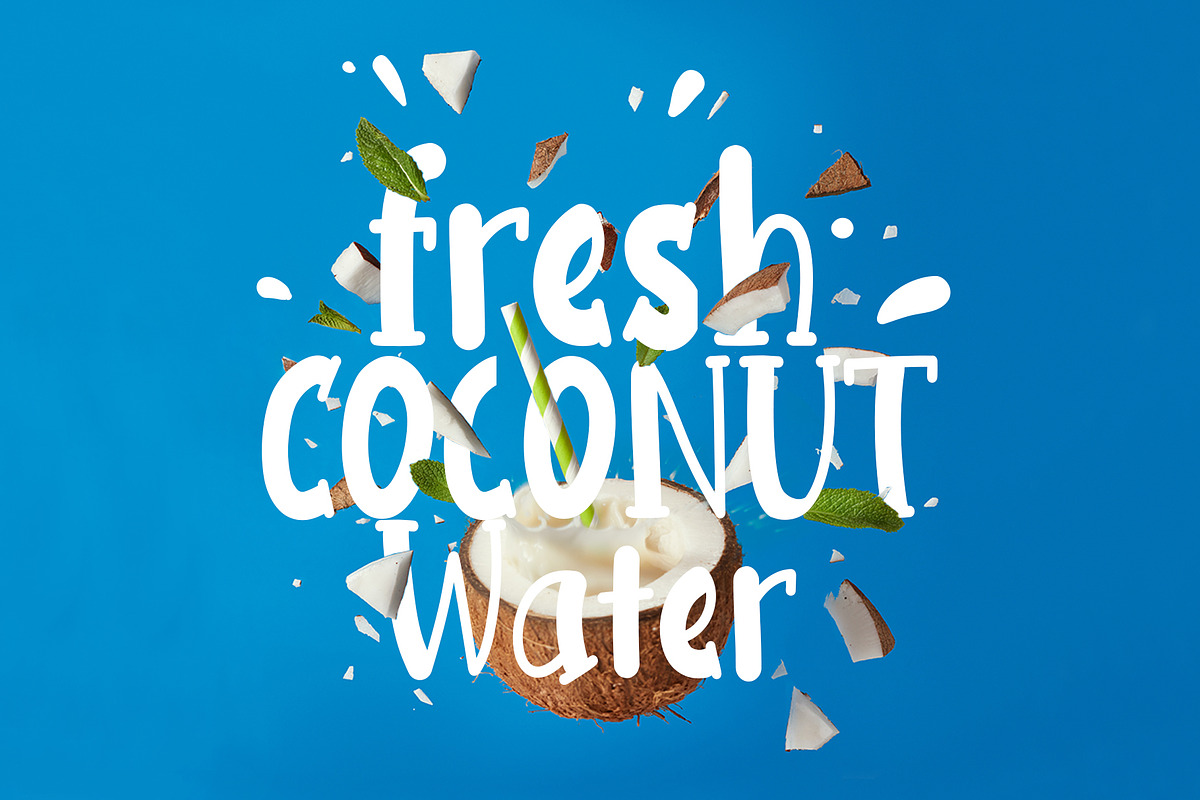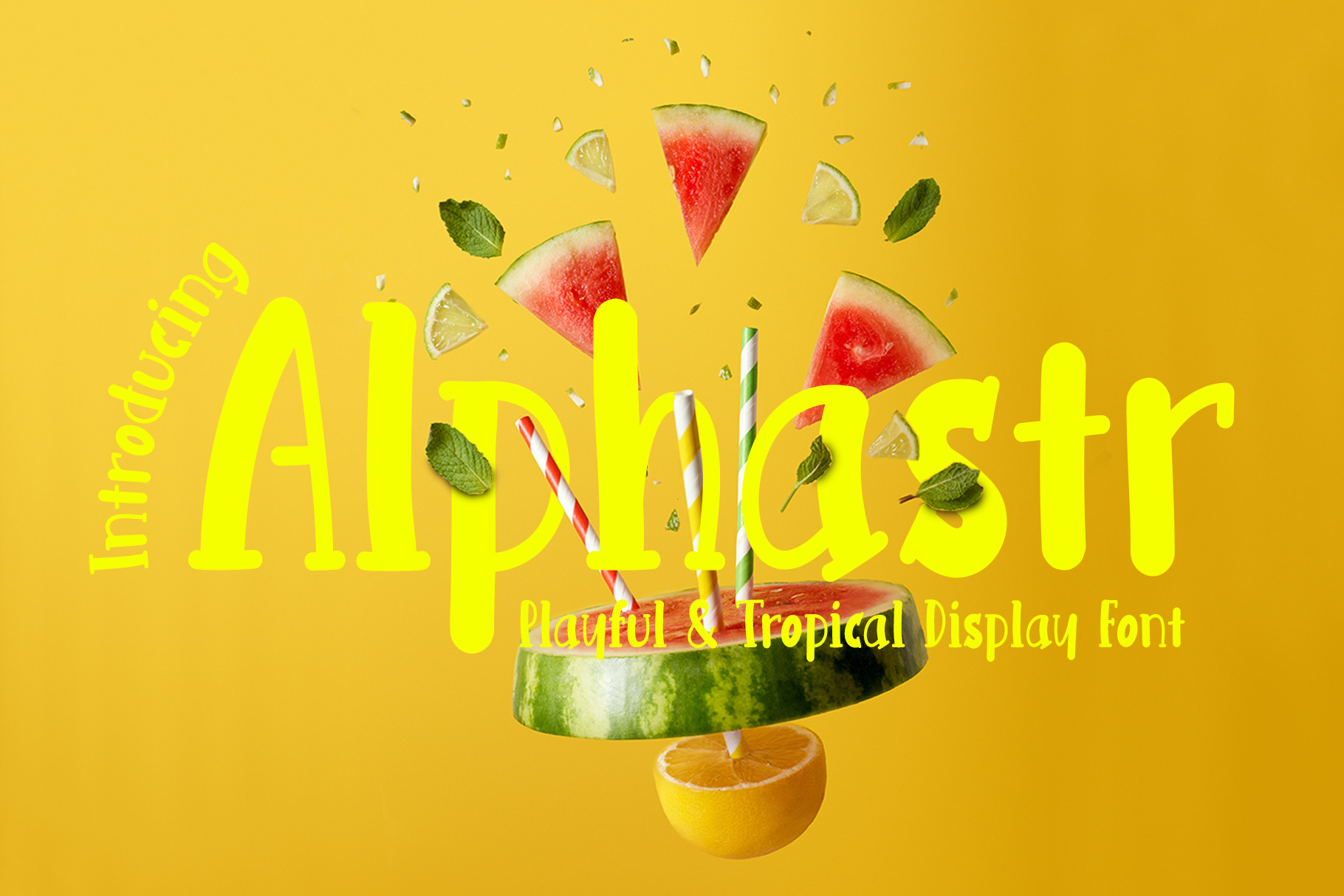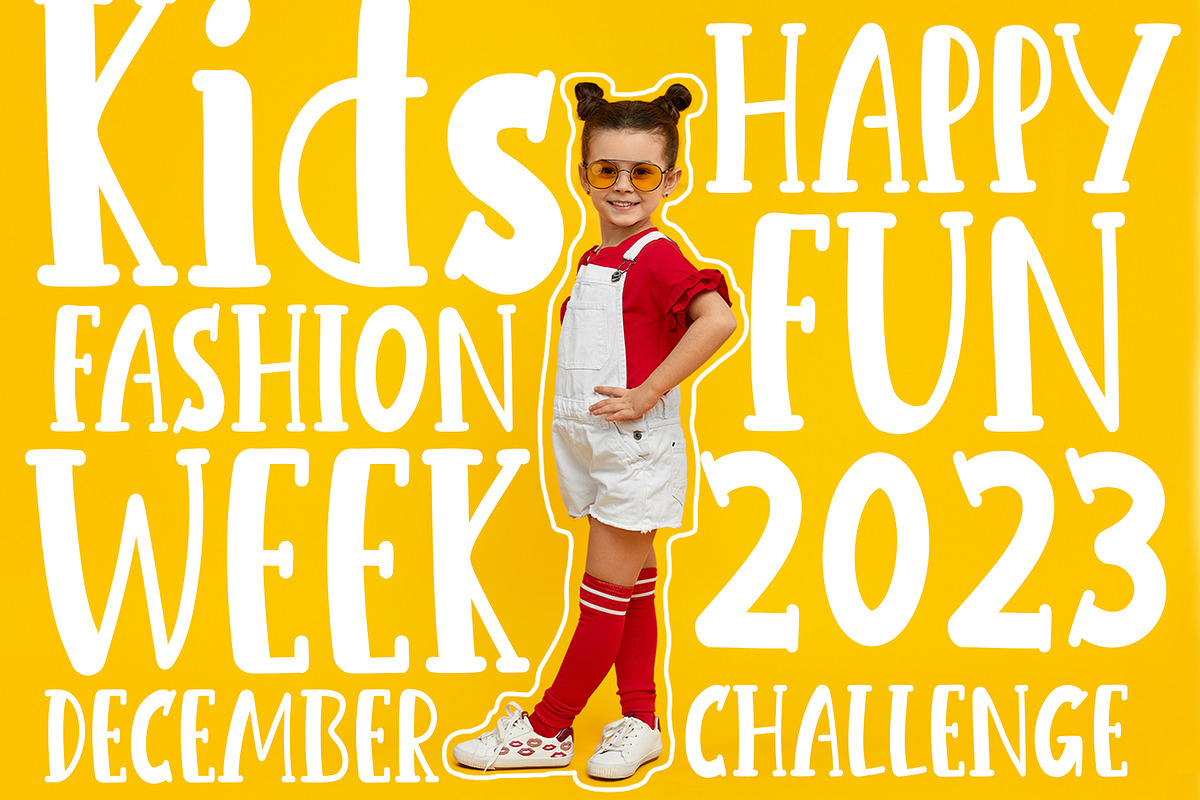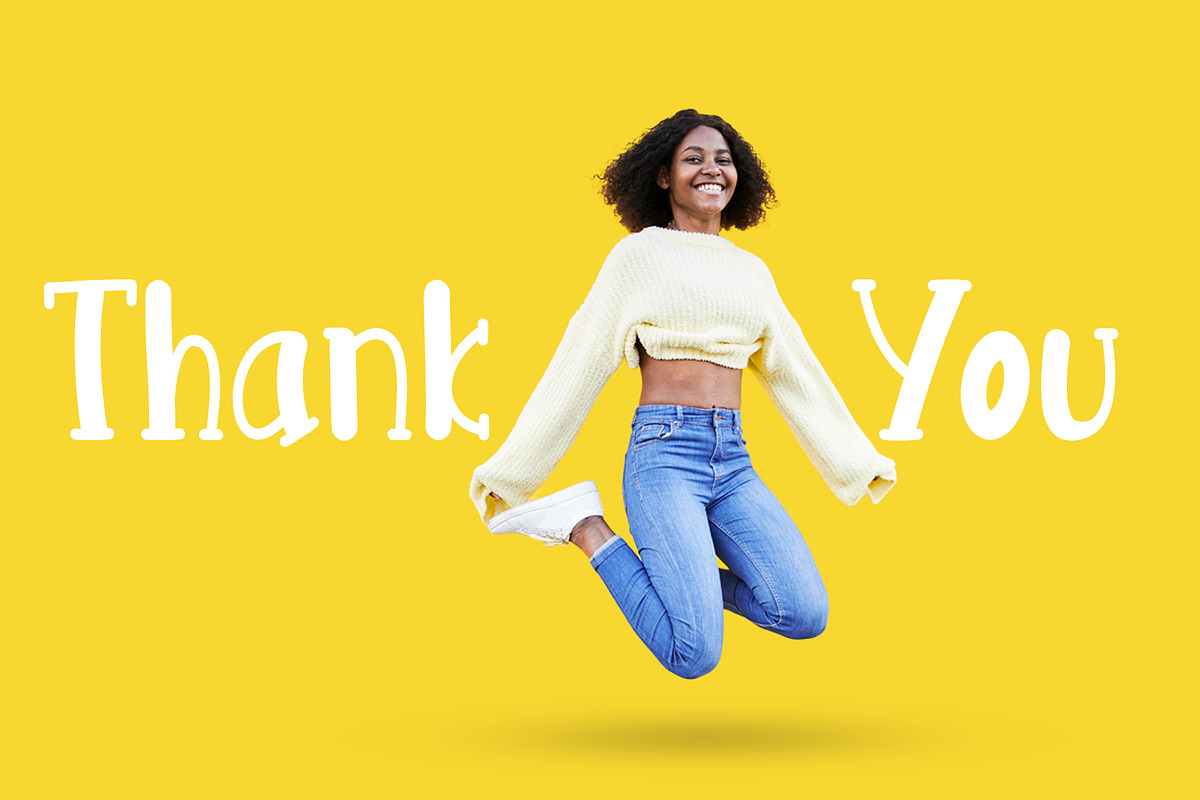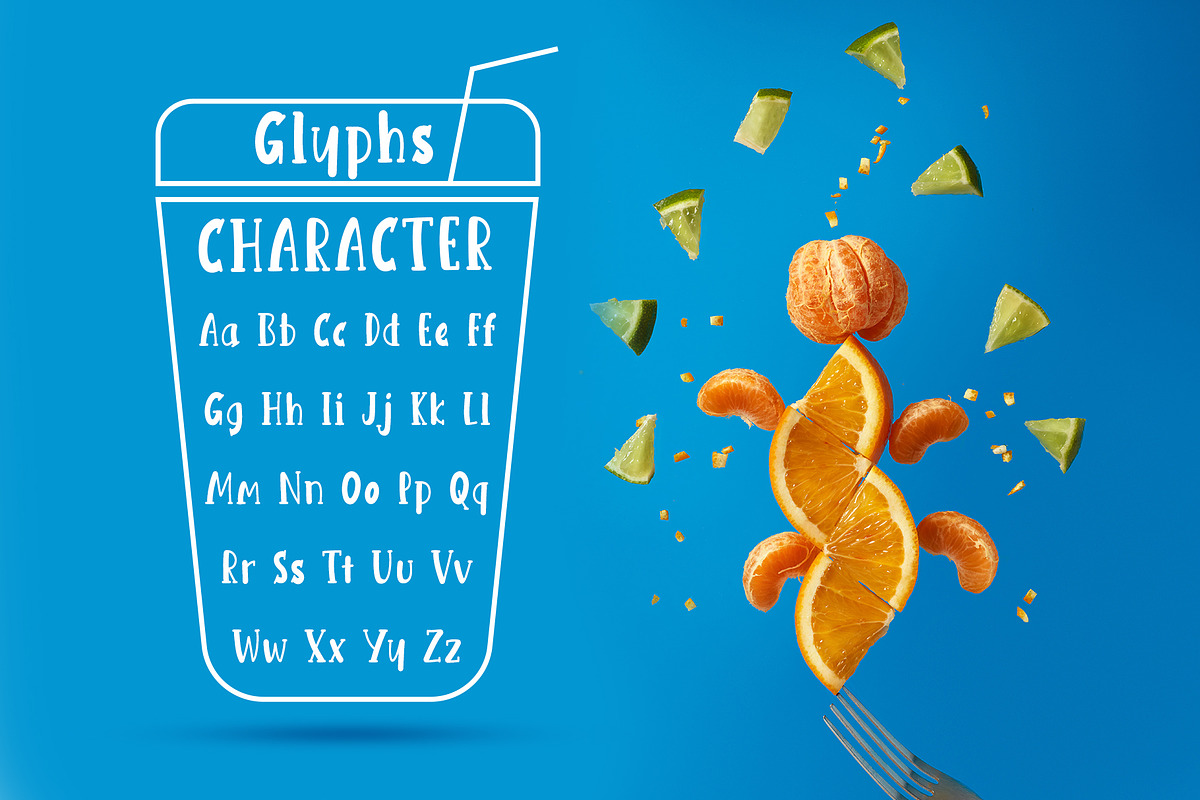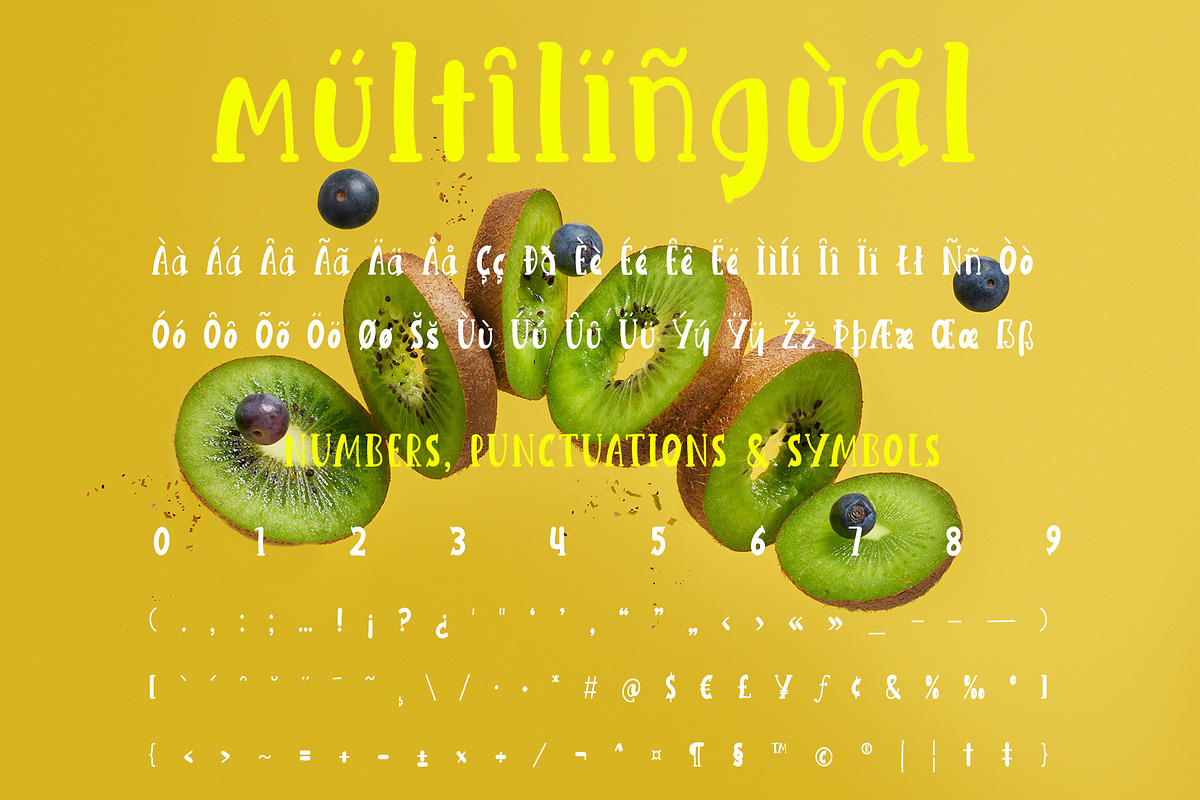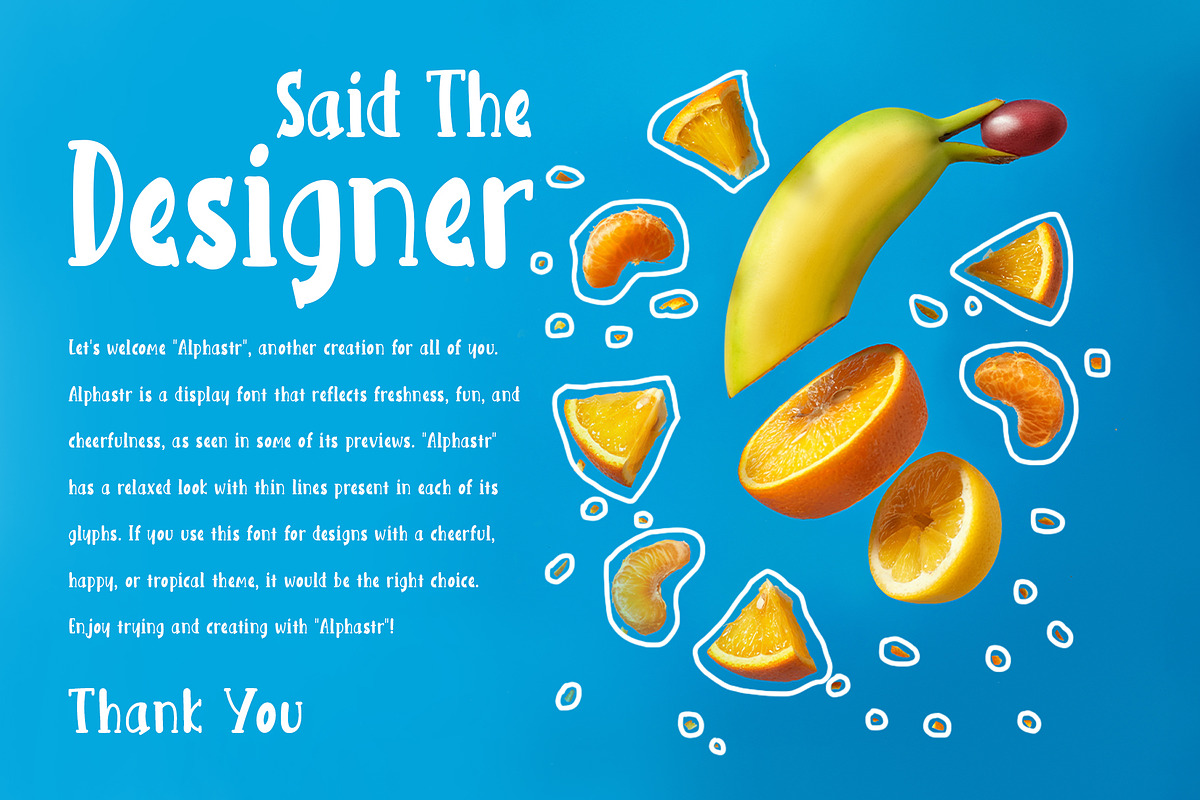
Alphastr A Playful & Tropical Font
Alphastr is a font that depicts the freshness and deliciousness of tropical fruits. Created to provide a refreshing and appetizing look, this font reflects the beauty and temptation of tropical fruits.
The history behind the creation of this font began with our desire to depict the deliciousness and freshness of tropical fruits. We were inspired by the diversity of tropical fruits available in tropical regions, such as mangoes, pineapples, oranges, and many more. We aimed to create a font that could bring an appetizing look and remind of the refreshing sensation of enjoying tropical fruits.
Alphastr portrays each letter and character with delicious and enticing shapes. Every element in this font is designed to create a fresh and palate-pleasing look. The font gives the impression as if you are tasting fresh and sweet tropical fruits.
The Alphastr font is highly suitable for various design projects that aim to showcase the deliciousness and freshness of tropical fruits. You can use it in food packaging designs, restaurant menus, promotional posters, and more, to grab attention and stimulate the readers' appetite.
So, with the Alphastr font, you can bring the deliciousness and freshness of tropical fruits into your designs. The font will provide a fresh and appetite-stimulating look, creating a sensation reminiscent of the enjoyment of tropical fruits. Infuse a tropical flavor into your designs with the Alphastr font.